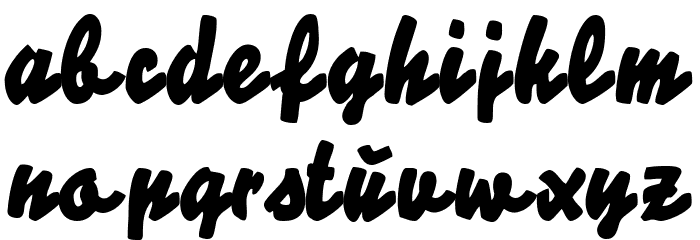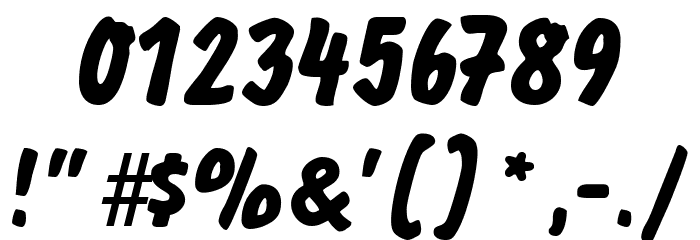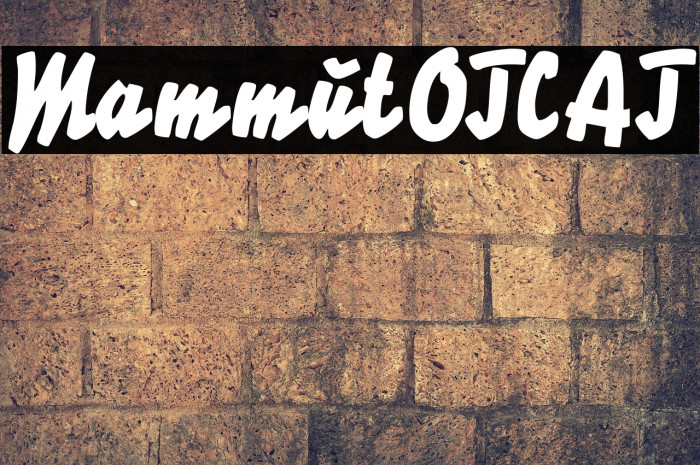
MammutOTCAT Font
This font features a bold and dynamic script style with a playful and energetic appearance. The characters are connected, giving it a flowing, cursive feel. The strokes are thick and consistent, contributing to its bold presence. The uppercase letters are slightly more structured, while the lowercase letters exhibit a more casual, handwritten quality. The numerals and special characters maintain the same boldness, ensuring uniformity across all glyphs. This font's lively and robust design makes it suitable for projects that require a strong visual impact.
A bold, dynamic script font with a playful, cursive style.
- Font: MammutOTCAT
- Category: Script